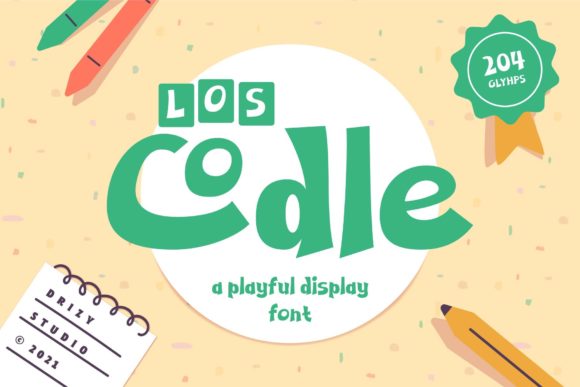
In a realm of apps designed for the curious minds of children, the Los Codle Font emerges as a playful and whimsical display font that captivates young imaginations. Drizy Studio, renowned for their enchanting creations, has poured their creative essence into this font, resulting in a masterpiece that transforms the digital world into an adventure playground.
Immerse your child in a world of limitless creativity, where stories dance off the screen and imaginations soar. Los Codle's charming personality adds a touch of magic to any kids' app, inviting young minds to explore, learn, and dream. Its playful curves and vibrant energy breathe life into digital creations, making every interaction an unforgettable experience.
Let the vibrant spirit of Los Codle infuse your app with joy and wonder. Its carefully crafted characters, bursting with personality, will engage young users like never before. From captivating logos that ignite curiosity to playful titles that spark imagination, Los Codle is the perfect companion for any kids' app.
With its versatile nature, Los Codle effortlessly blends with a myriad of fonts, creating endless possibilities for customization. Its ability to seamlessly integrate into any project ensures that your app stands out from the crowd, leaving a lasting impression on young hearts.
Unleash the boundless creativity within your kids' app with Los Codle, the font that transforms the digital landscape into a whimsical wonderland. Let your app be the canvas upon which children's imaginations take flight, where every tap, swipe, and click becomes a journey into a world of enchantment.